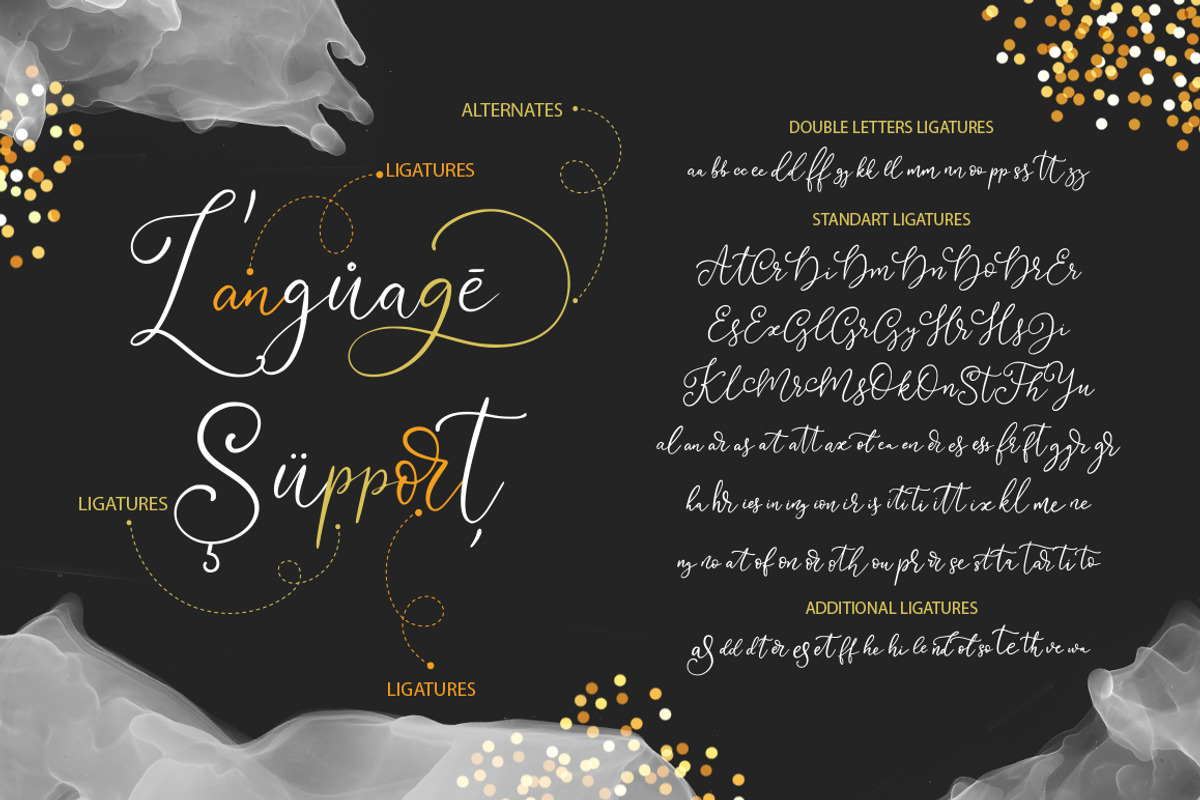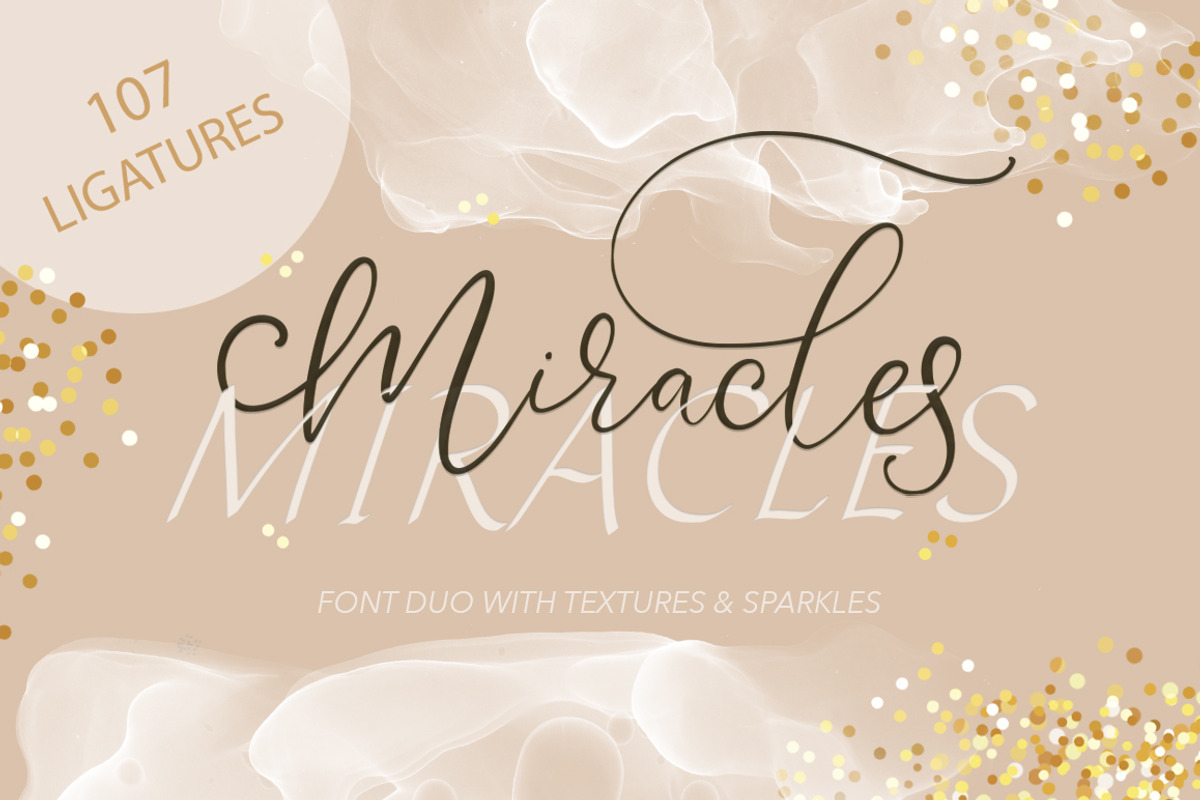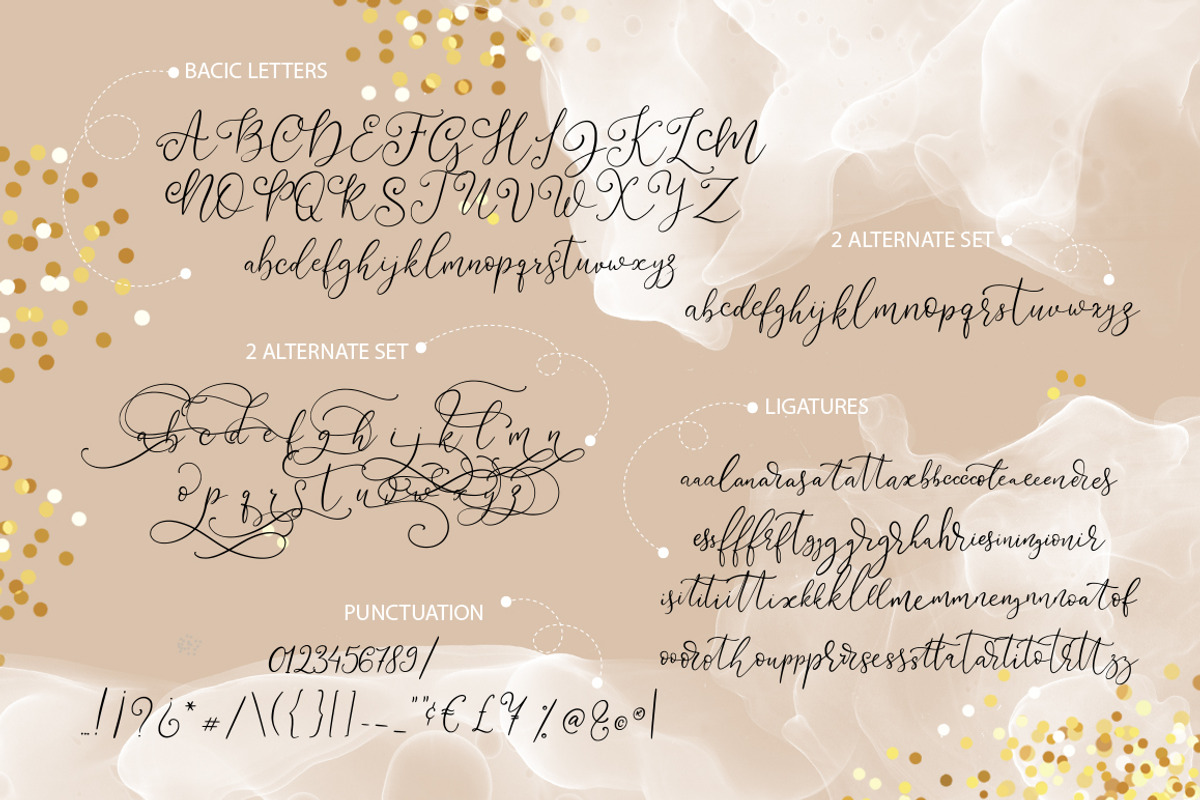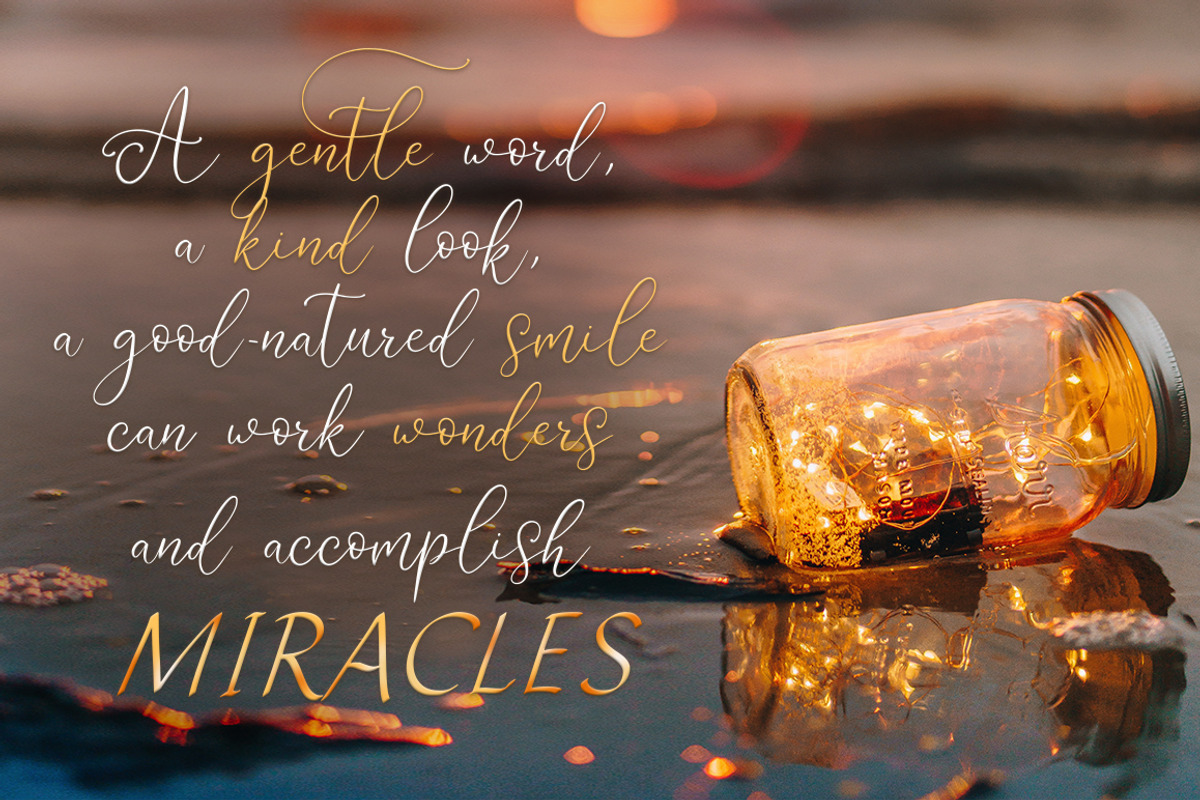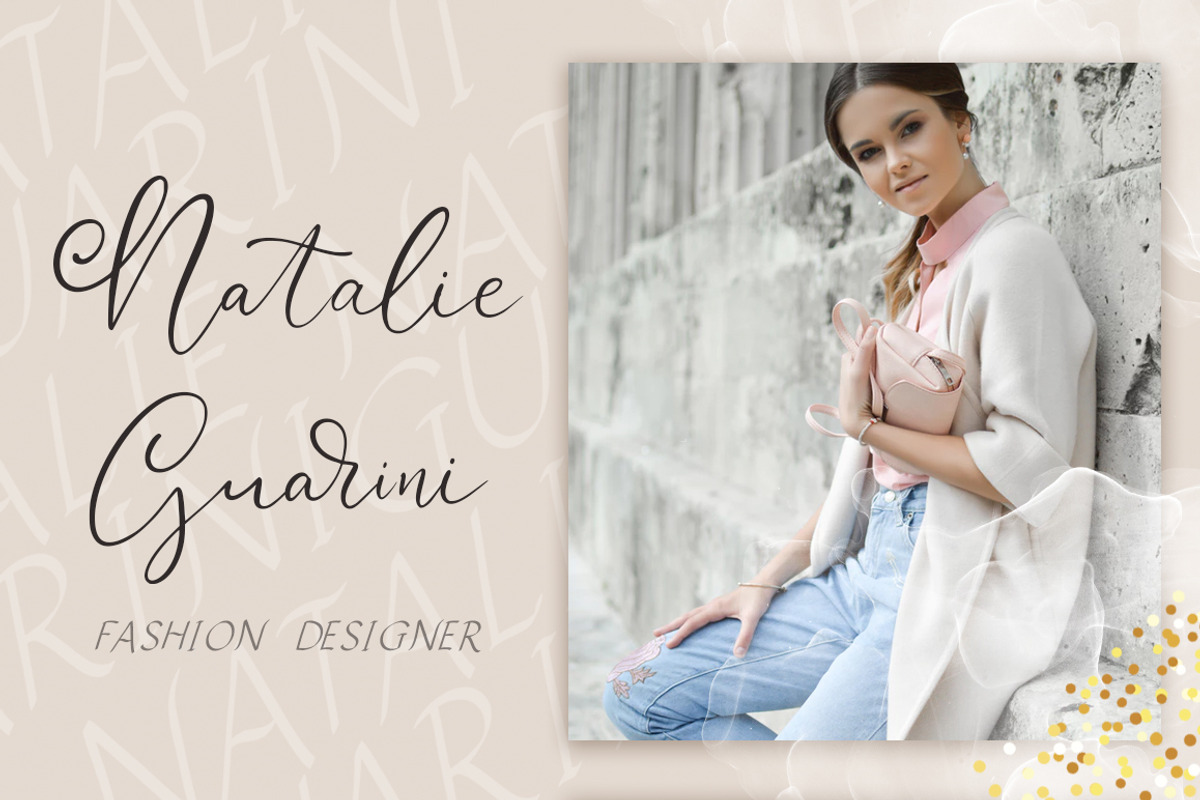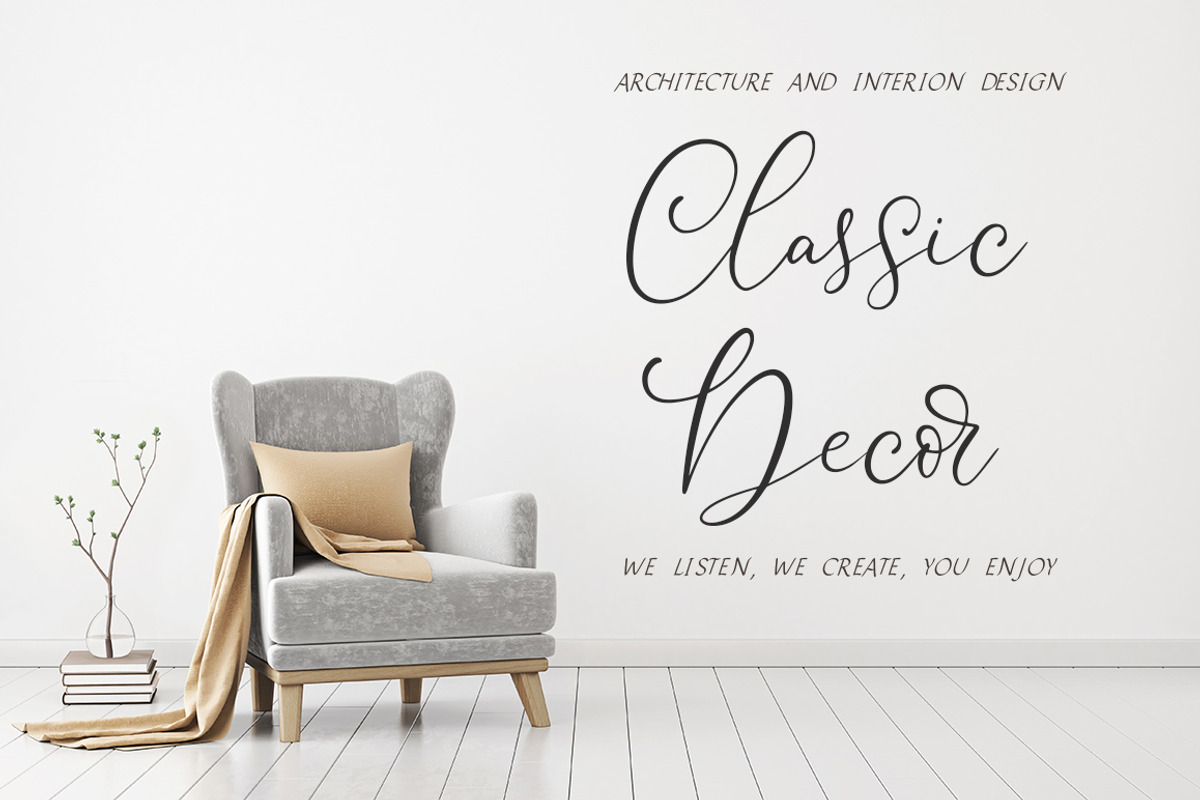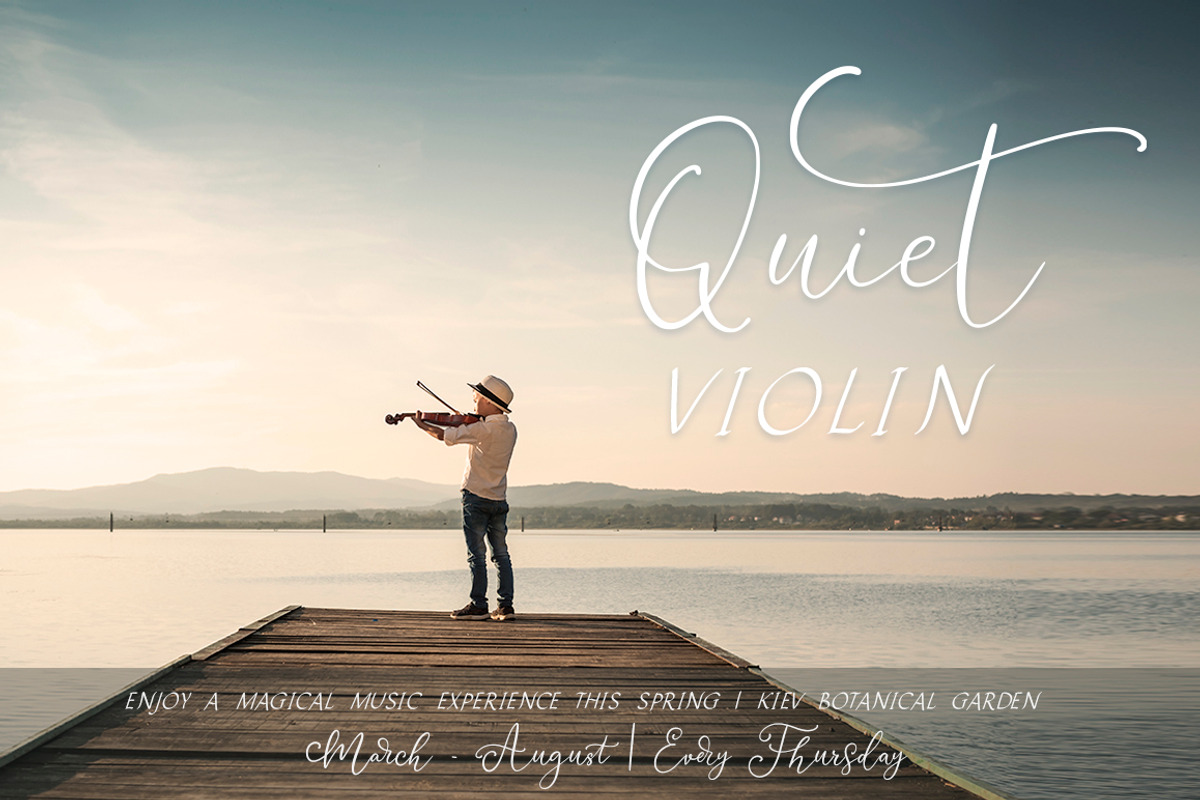
Miracles Duo Font + Extras
‘Miracles’ is a beautiful gentle pair of script and san serif fonts. ‘Miracles’ was created in order to repeat the peculiarities of hand-writing, where each letter is special where combinations of letters are unique and the work of a human feels.
Open type features include two sets of alternate lowercase letters, a lot of ligatures (107 unique letter combinations!).
Modern, expressive; perfectly combined typographic harmony is perfect for posters, greeting cards, t-shits, branding materials, quotes and any other amazing projects you are working on. Each font can be used separately. In conjunction they give a sense of lightness and delicacy – real “miracles”)))
‘Miracles’ font comes with such opportunities & OpenType features:
2 sets of alternate lowercase letters
Extended language support for both fonts, it covers Western European, Central European and South Eastern European languages
Font come with PUA Unicode that gives you full access to the ligatures and alternates in software that doesn't support the extra characters.
- 107 Ligatures;
- 2 sets of alternate lowercase letters